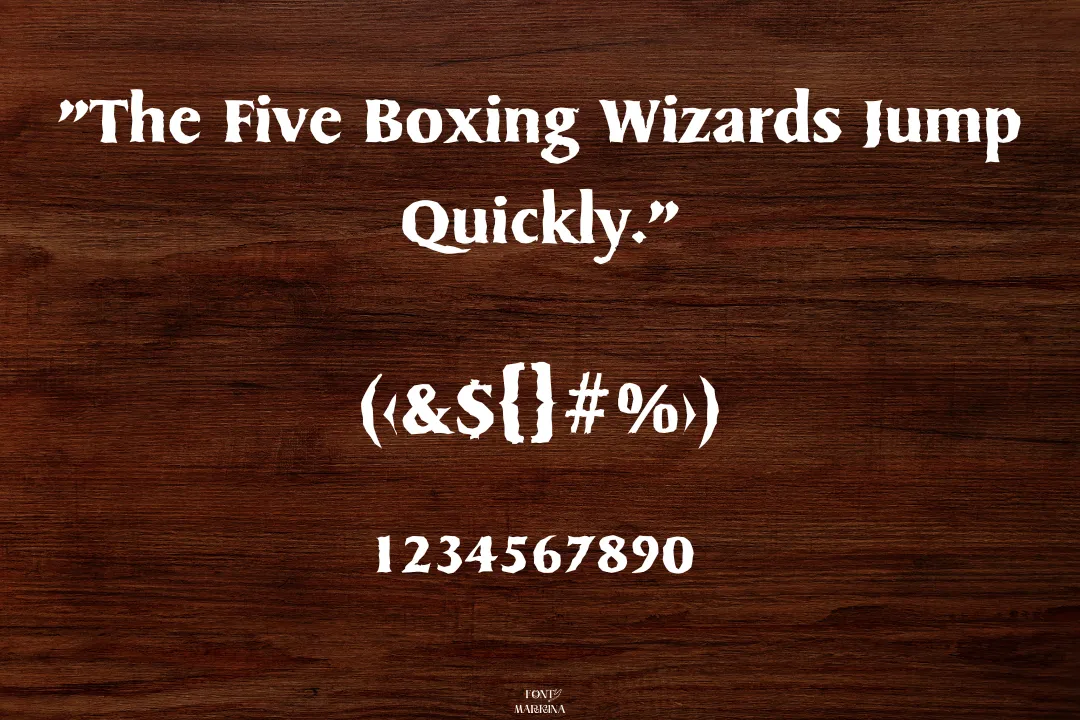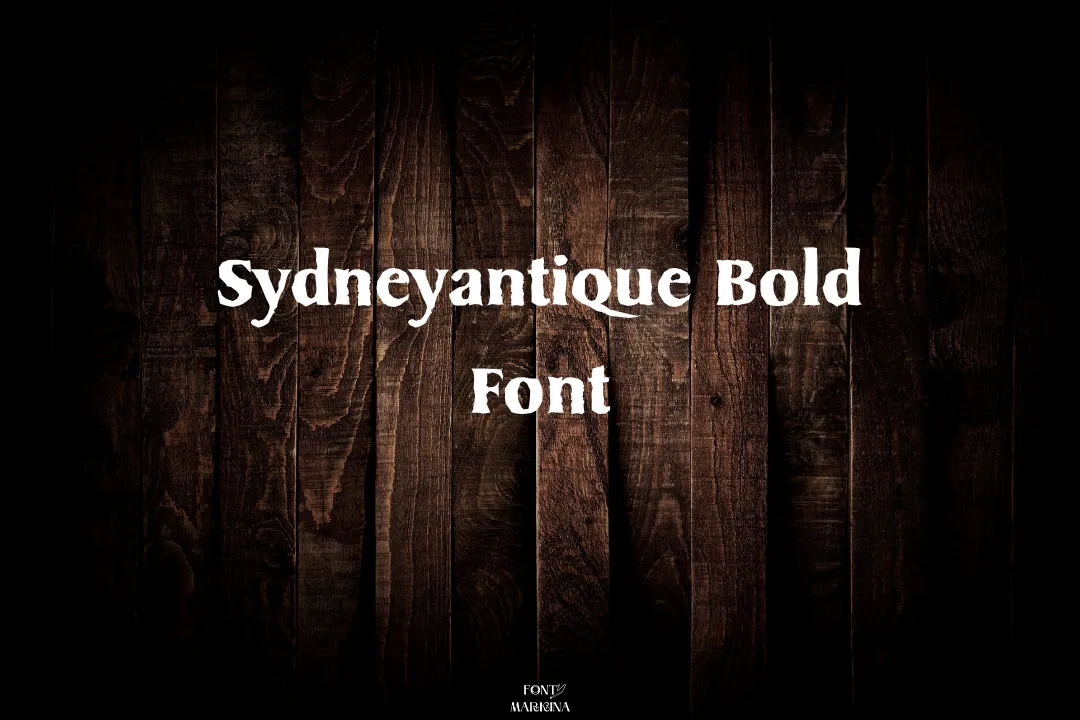
SydneyAntique Bold Font is a standard texture developed by SoftMaker Software GmbH. It is a slab serif font that features thick and bold strokes, giving it a vintage and classic look.
This font comprises uppercase and lowercase letters, as well as numerals and various punctuation marks. This texture is part of the larger Sydney family of typefaces, which also includes other styles such as Regular, Italic, and Light. Aachen font is alternative to this family and has the same look and lines.
Uses of SydneyAntique Bold Font
SydneyAntique Bold texture is a bold and attention-grabbing font, it may be the best choice for setting large blocks of text, such as paragraphs. The thick strokes and decorative serifs can make it difficult to read at smaller sizes, and the boldness of the font can be overwhelming if used too frequently.
It can be used effectively in small doses within a paragraph, such as for emphasis on a particular word or phrase. This typography can also be used to set headlines or subheadings within a larger body of text, provided that the font size and spacing are carefully considered to ensure readability. It is also best for you that make the pairing this typography with Bree Serif font.
| Name | SydneyAntique Bold Font |
| Designer | SoftMaker Software GmbH |
| Style | Slab Serif |
What is the type of Sydney Antique Bold Font?
This texture falls in the classification of the slab serif family of fonts and has thick and bold strokes.